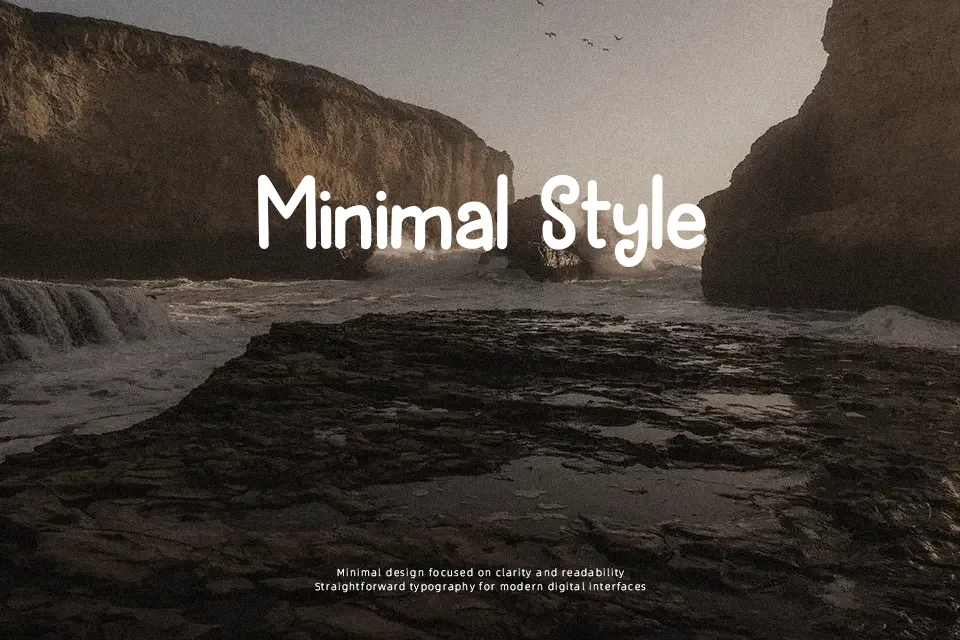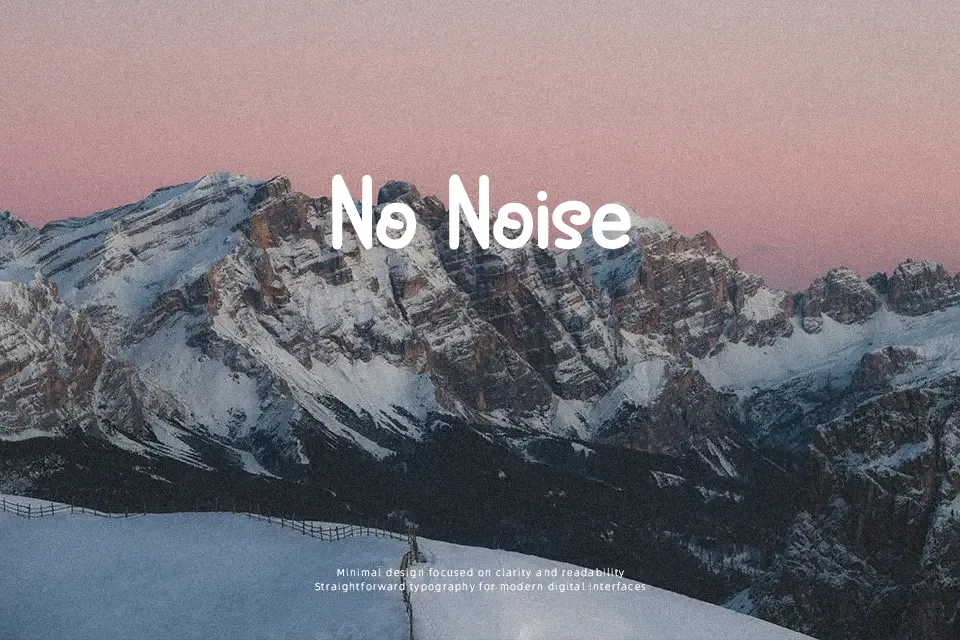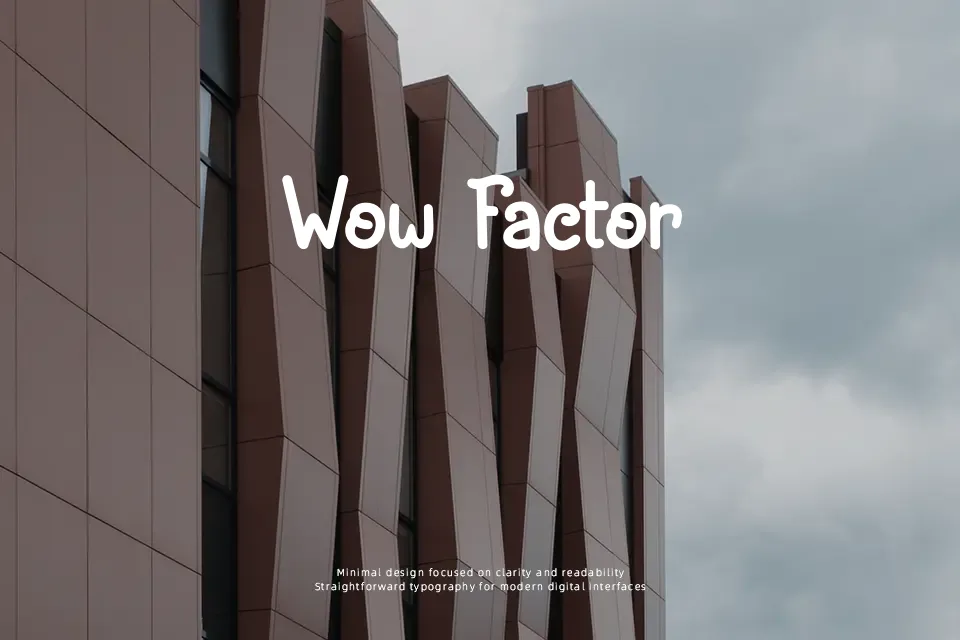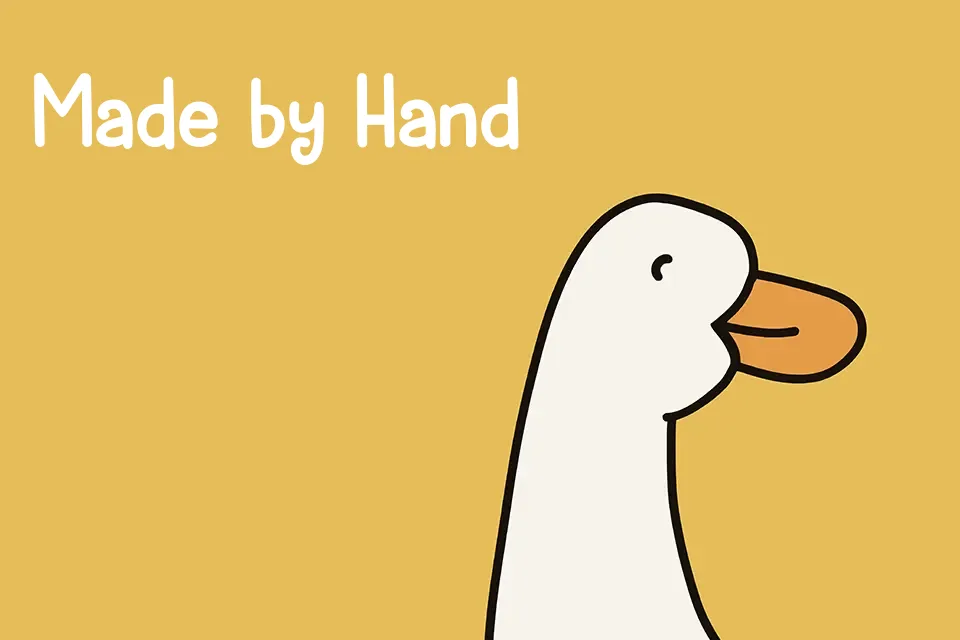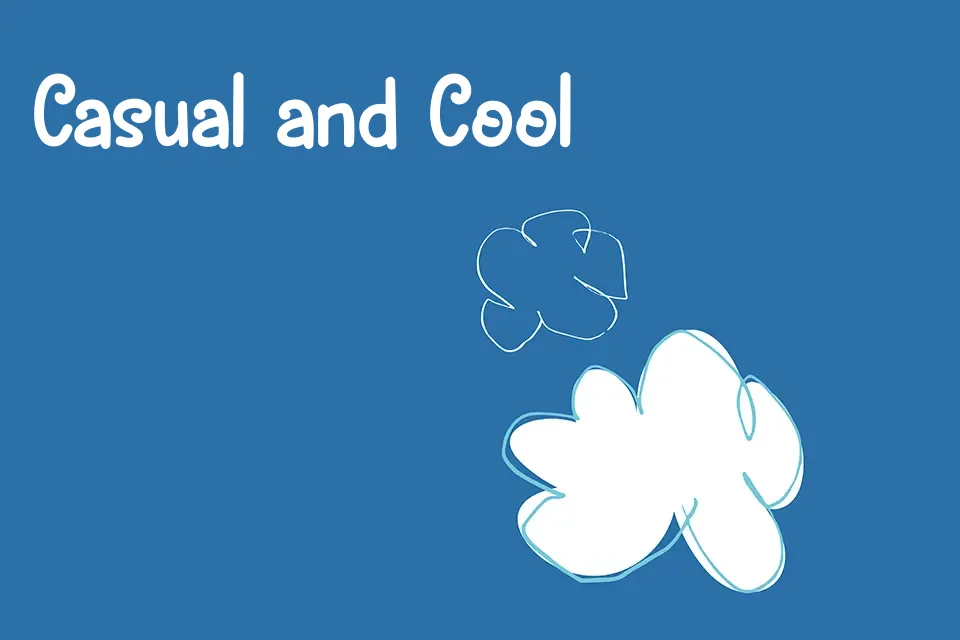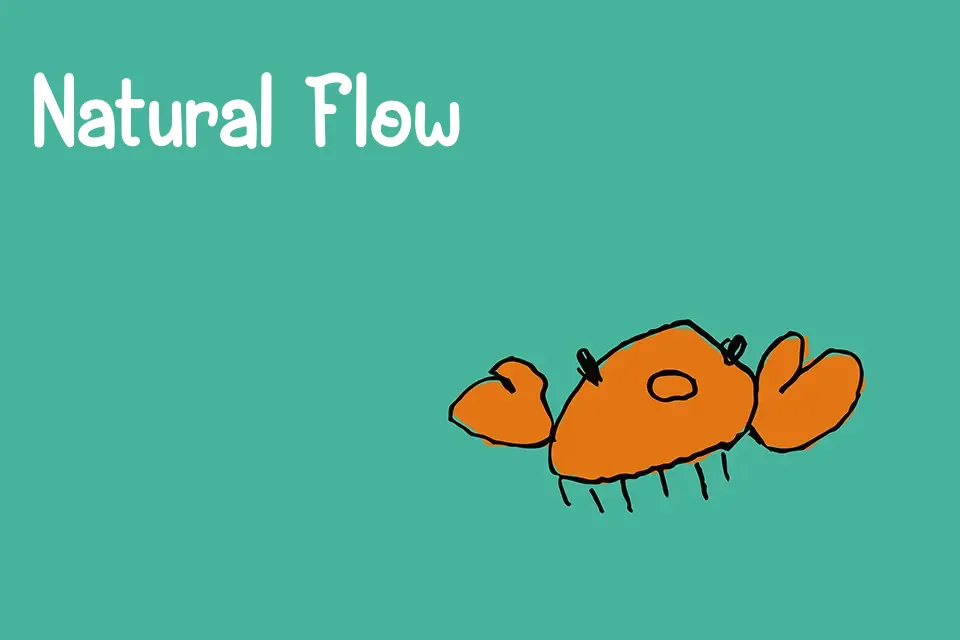
Brochette Font
Brochette Font has an easygoing, hand-drawn look, with rounded strokes, slightly uneven rhythm, and comfortable spacing that keeps words readable even when used in bolder colors. It feels informal and fun rather than slick or corporate, so it works well for lighthearted posters, kids’ event graphics, casual restaurant blackboards, or social media quote cards that need a friendly voice. I would reach for it when the design can afford some looseness, but avoid it for long body text, strict editorial grids, or high-end luxury branding where you need tighter structure and polish. If you like comic-style lettering that still behaves well in layout, this sits comfortably in that space without becoming chaotic.
playful poster headlines and banners
kids event flyers and party graphics
casual restaurant or café menus and chalkboard-style boards
friendly social media quote images and stickers
long paragraphs or dense body copy
formal editorial layouts or reports
luxury or highly minimalist branding systems
interfaces where strict geometric clarity is required
Perfect for branding, kids, and poster, with a artistic and display style.